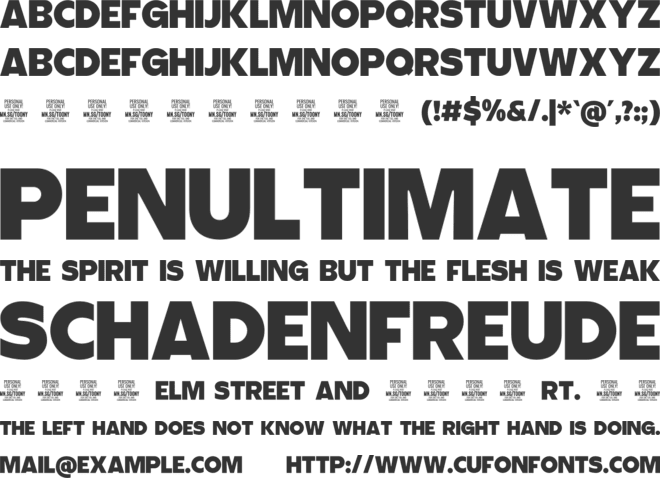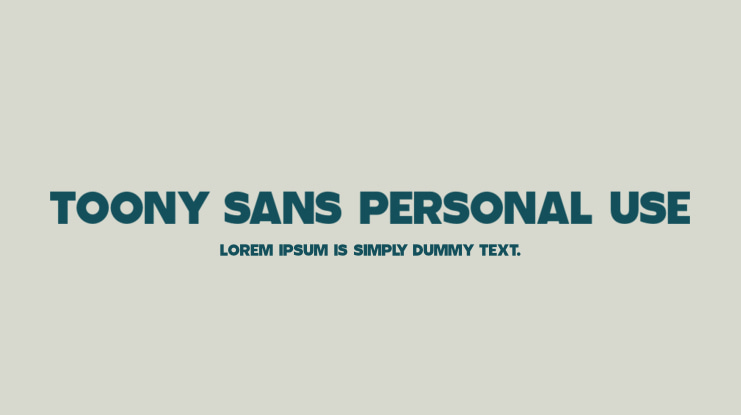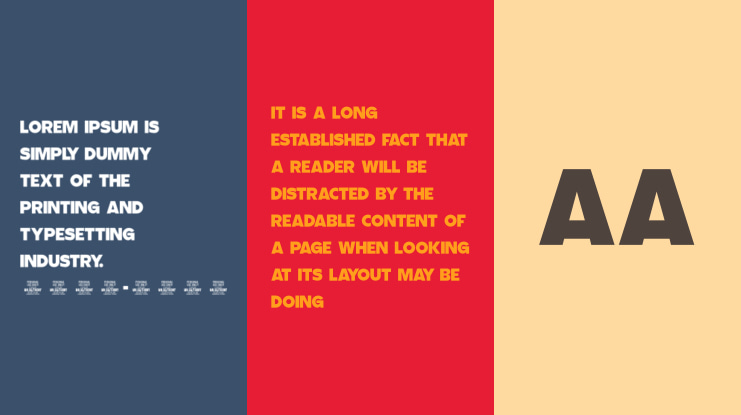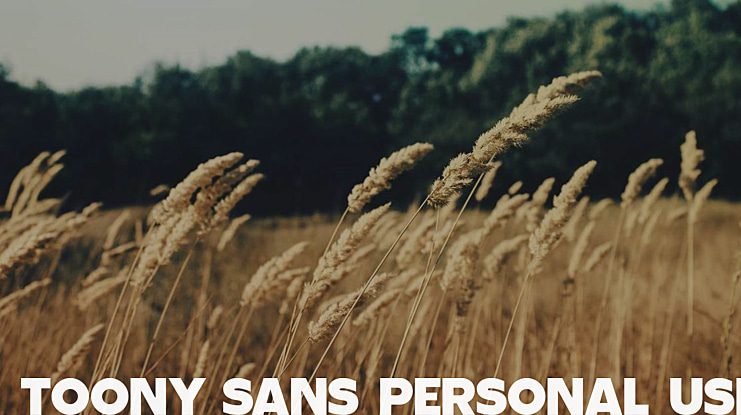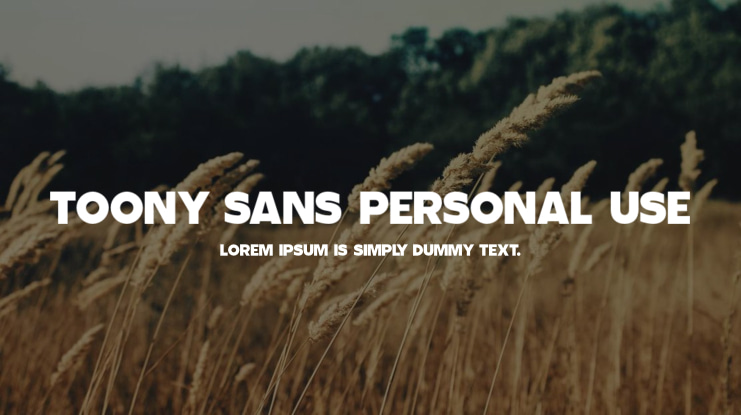
Toony Sans PERSONAL USE Font Family
Mans Greback
Toony Sans is a modern take on traditional typography. It pays homage to beloved animations while maintaining a clean, sans-serif style that exudes professionalism with a touch of nostalgic charm.